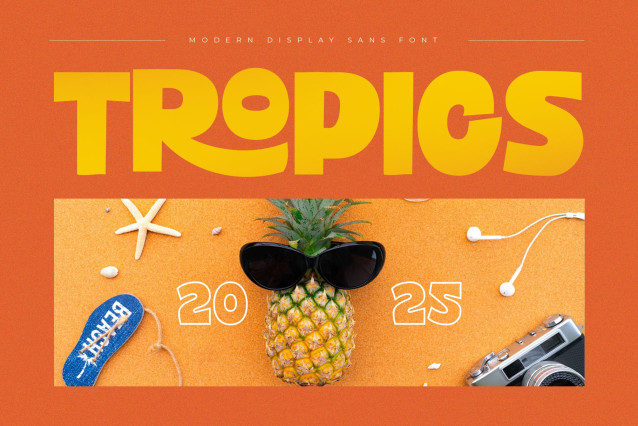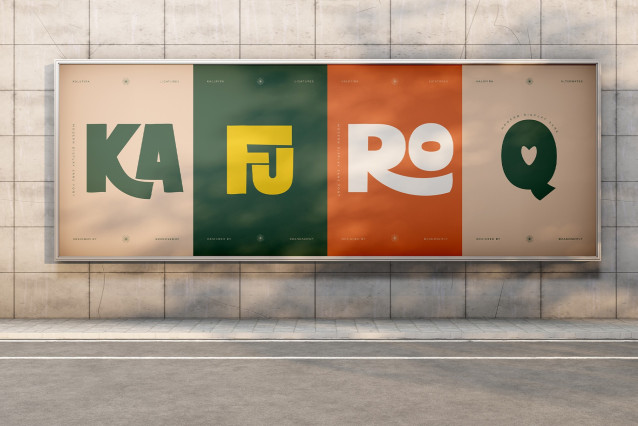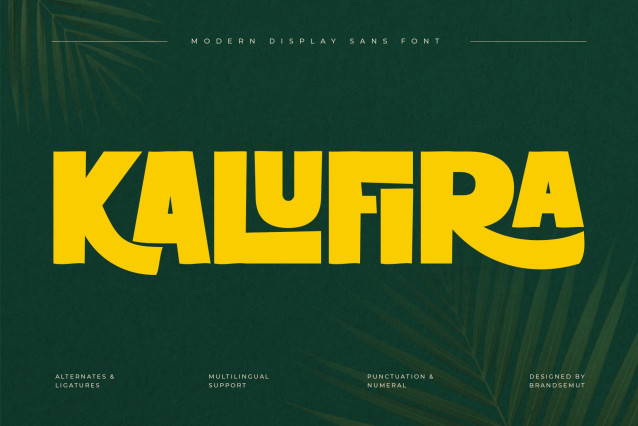
Kalufira Font
Kalufira Font is a modern bold display sans serif font that combines strength, creativity, and style in one unique typeface. With its thick curves, clean lines, and distinctive shapes, Kalufira is perfect for making a strong visual impact in any design project.
Designed with alternates and ligatures, this font allows you to explore endless creative possibilities and bring a custom feel to your typography. Kalufira also includes punctuation, numerals, and multilingual support, making it versatile for global use.
Ideal for logos, branding, posters, packaging, album covers, merchandise, social media graphics, editorial headlines, and website headers, Kalufira delivers boldness and uniqueness that grabs attention instantly. Its modern yet playful design makes it suitable for both professional and creative projects.